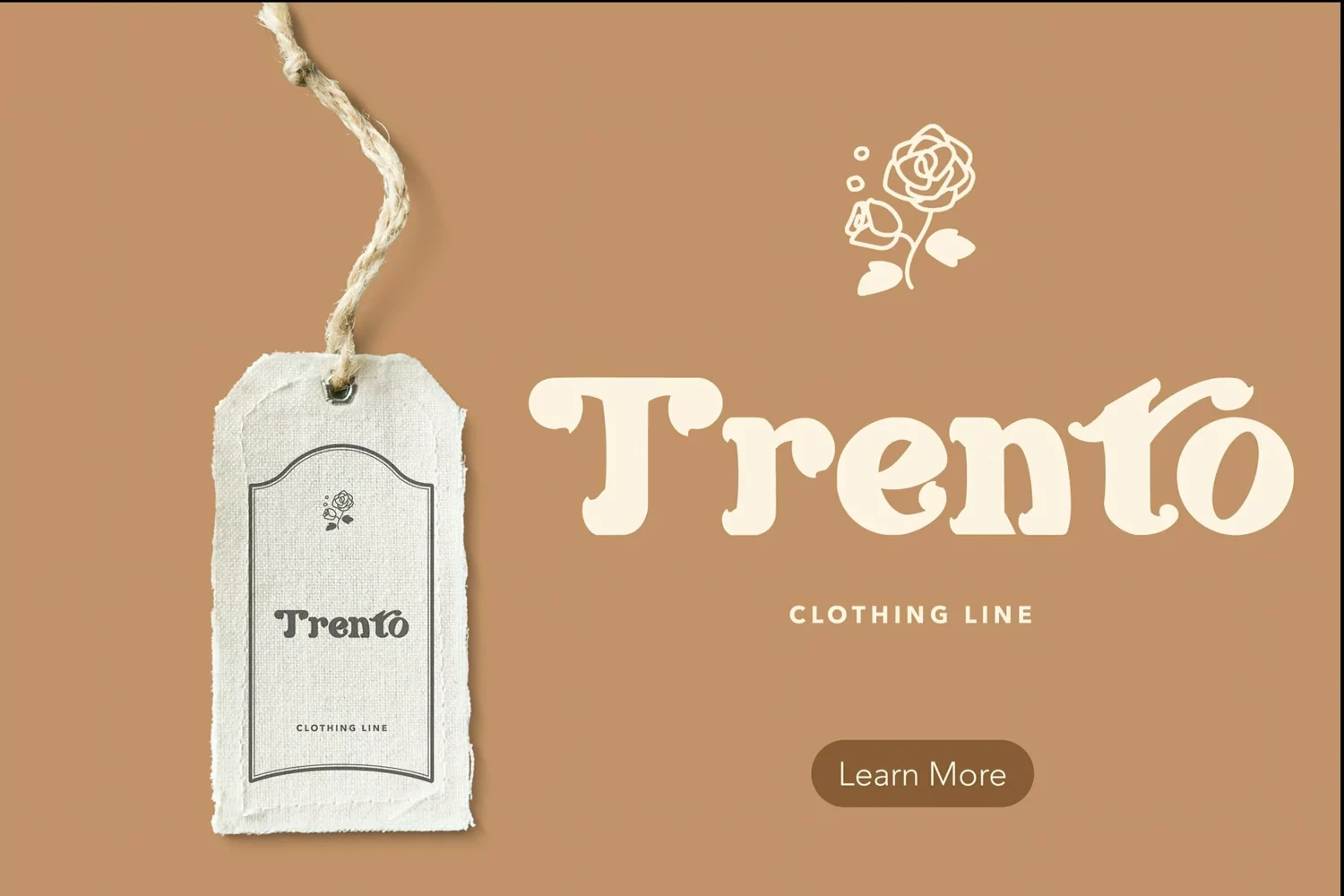
Hanqing - Elegant & Retro Font that contain lowercase, uppercase, symbol, and also support multi language. There’s a lot ligatures in this font. This Font also comes with ligatures, alternates and many more. this font suitable for fashion, branding, catalog and other design what you want.
Hanqing